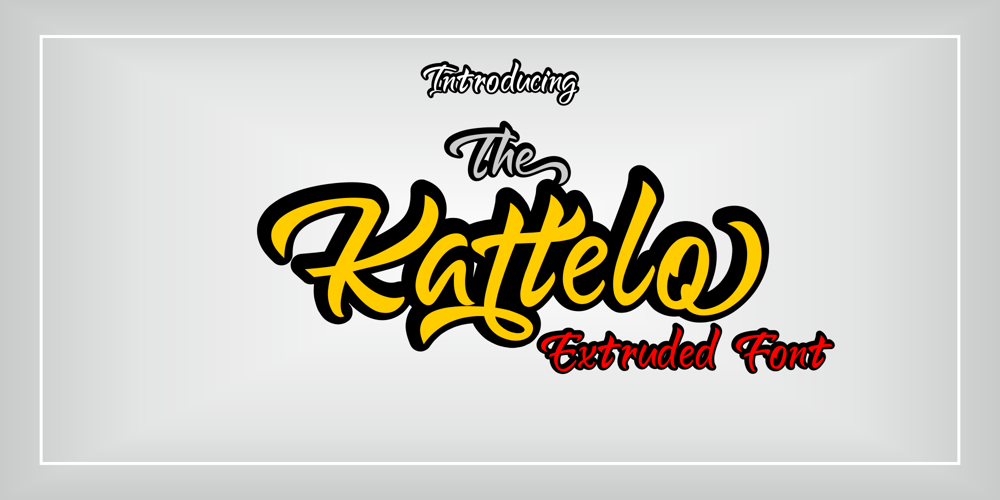
Kattelo
Kattelo font
Kattelo Font Family was designed by Murtadha bin Sulaiman and published by Malindo Creative. Kattelo contains 2 styles and family package options. Introducing, Kattelo is a beautiful retro style font, with a Kattelo giving a touch of attractive design typography, Kattelo is one of the handwriting projects. It was very inspired by the famous retro typography design.Kattelo also comes with the Extruded Font version. So you don’t need extra effort to make the effect repel for this font,with Kattelo you can create many design styles.Kattelo is also equipped with 514 Glyphs, and also features OpenType.The Features includes: Stylistic Alternates, Swashes, Ligatures, and Stylistic Set.Extrude,and You can pick the alternate for all styleKattelo has given PUA encoded (fonts with special code).This Font Equipped:-Uppercase-Lowercase-Figures & Punctuation-Stylistic Alternatives-Ligatures-Extruded for All Glyph-Language SupportTo enable the OpenType Stylistic alternates, you need a program that supports OpenType features such as, Adobe Indesign,Adobe Illustrator CS & CorelDraw X6-X7, Microsoft Word 2010 or later versions.How to access alternate glyphs? you can see it on this link goo.gl/1vy2fvIf There Any questions, Please Let Me Know,Contact Me,At malindocreative@gmail.com,Your support and suggestion is needed, And I am Happy To Help You.Thank you for your kindness and support,Hopefully Useful,And Good Luck For You.